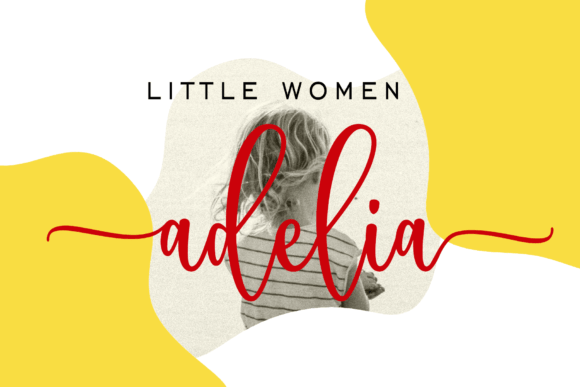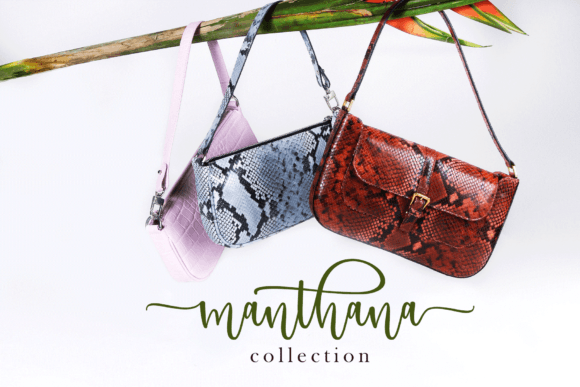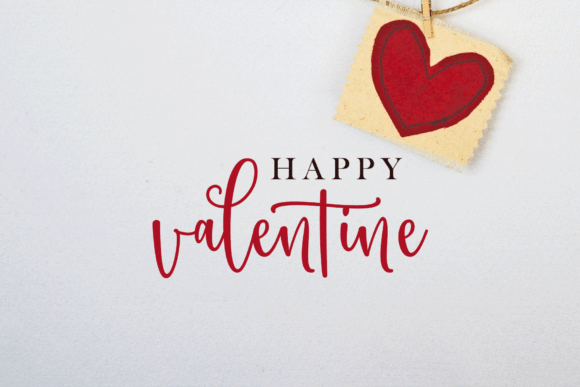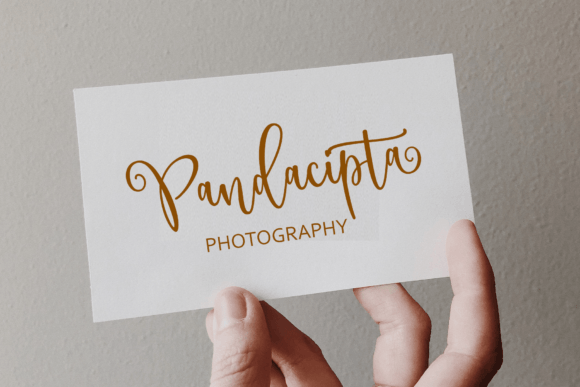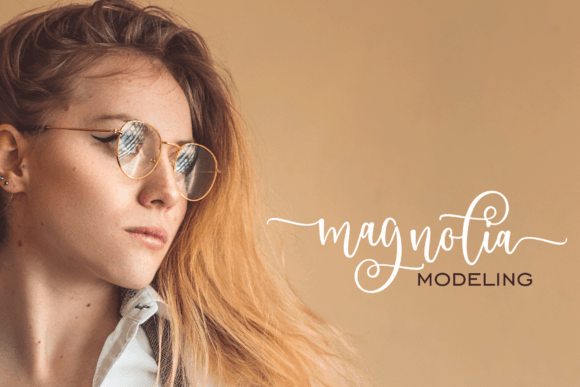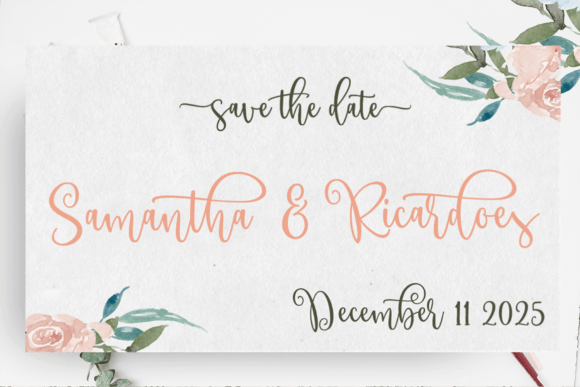
Introduction to Panda Script Font
Have you ever been stuck on a creative project, searching for that perfect design element to bring it all together? I know I have. One day, while working on a branding project, I stumbled upon a beautiful script font that instantly elevated the entire design. It was then that I discovered the Panda Script Font – a lovely and delicate script font that exudes elegance and class.
This high-quality design resource has been a game-changer for designers like myself, providing a beautiful and refreshing look to our projects. Whether you’re working on a creative project with a transparent background or need a stylish font for your logo, the Panda Script Font is an invaluable asset. And the best part? It’s available for free download, making it a valuable resource for designers of all levels.
With its versatility and sophistication, the Panda Script Font is a must-have in any designer’s toolkit. In this article, we’ll delve into the world of this stunning font and explore its many benefits for designers.
Key Features of Panda Script Font
- Unique, handwritten script style with a personal touch
- Includes a wide range of characters, including uppercase and lowercase letters, numbers, and punctuation
- Perfect for adding a touch of elegance and sophistication to any design project
Honest Review: Panda Script Font
I recently had the chance to work with the Panda Script Font, and I’m excited to share my thoughts with you.
- High-quality design: The Panda Script Font is a beautiful addition to any creative project.
- Transparent background: This makes it easy to work with the font, and it’s perfect for overlaying on images.
The Panda Script Font is a great choice for designers looking for a elegant and sophisticated font. It’s perfect for creative projects that need a touch of class.
- Limited character set: The font only includes a limited set of characters, which may be a problem for some designers.
- Not suitable for large text: Due to its script nature, the font may not be the best choice for large blocks of text.
Overall, I’m impressed with the Panda Script Font. While it has some limitations, it’s a great addition to any designer’s toolkit, and it’s free to boot!
Panda Script Font
The Panda Script Font is a high-quality design resource ideal for creative projects that require a unique and elegant touch. With its transparent background and beautiful script style, this font is perfect for designers who want to add a personal touch to their work.
Tips for Getting the Most Out of Panda Script Font
To get the most out of the Panda Script Font, use it in combination with other high-quality design resources, such as images and graphics. Experiment with different font sizes, colors, and styles to create a unique and eye-catching design.
The Panda Script Font is ideal for a variety of design projects, including:
Brand logos and identity
Product labels and packaging
Quote and inspirational graphics
Alternatives to Panda Script Font
Great Vibes is a high-quality script font perfect for creating a beautiful, elegant look in your design. It’s ideal for use in wedding invitations, creative project presentations, and other design elements that require a touch of sophistication.
Great Vibes is similar to Panda Script Font in its flowing, handwritten style, but it has a more refined and polished look. It’s available for free download and can be used with a transparent background, making it a versatile design resource.
Carolyna Pro is a modern script font designed for use in creative projects, such as branding, packaging, and advertising. Its elegant, high-quality design makes it perfect for use in a variety of design elements, from logos to typography.
What is the recommended font size for using the Panda Script Font in a creative project?
The recommended font size for using the Panda Script Font in a creative project depends on the specific design and intended use. However, as a general rule, it’s best to use the font at a size between 24-48 points for optimal readability. This will ensure that the font is clear and easy to read, while still maintaining its high-quality design aesthetic.